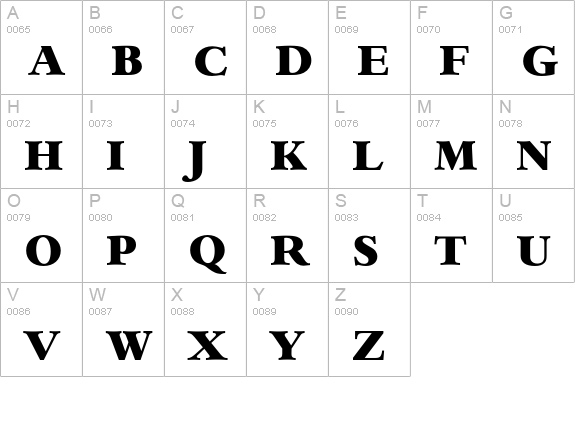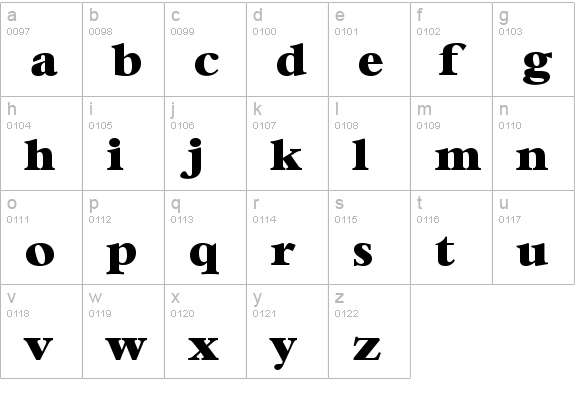
Habitus Font Details
Habitus font is a stunning typeface that captures the essence of elegance and sophistication. Its sleek and modern design is perfect for a wide range of creative projects, from branding and packaging to web design and advertising. With its clean lines and balanced proportions, Habitus font exudes a sense of professionalism and refinement. Its versatility allows it to be used in various contexts, whether you want to convey a sense of luxury or a contemporary aesthetic. One of the standout features of Habitus font is that it is available for free. Yes, that's right - this exceptional font can be downloaded at no cost from FontsMarket.com. This makes it accessible to designers and creatives of all levels, allowing them to elevate their work without breaking the bank. Whether you're working on a personal project or a client commission, Habitus font will undoubtedly make a lasting impression. Its ability to seamlessly blend with different design elements and adapt to various styles is truly remarkable. So why wait? Enhance your typography game with Habitus font. Download it for free at FontsMarket.com and unlock a world of endless creative possibilities.